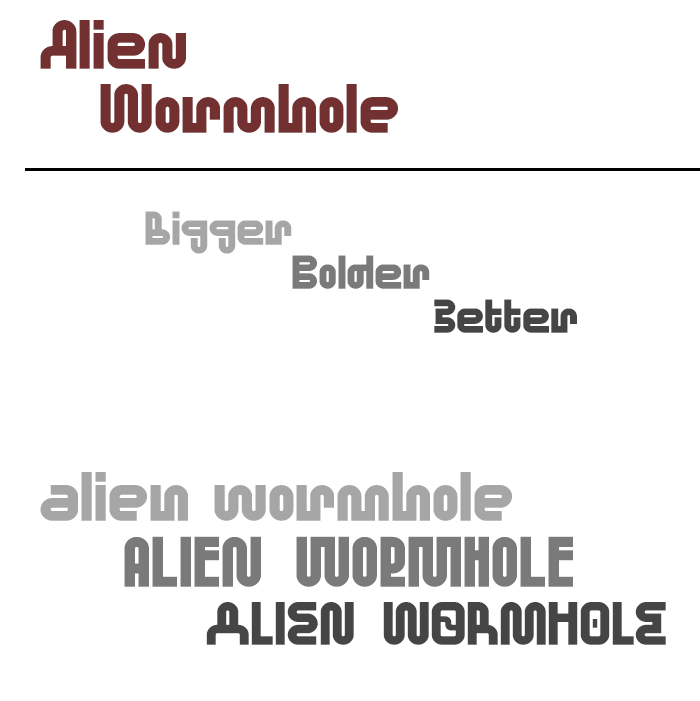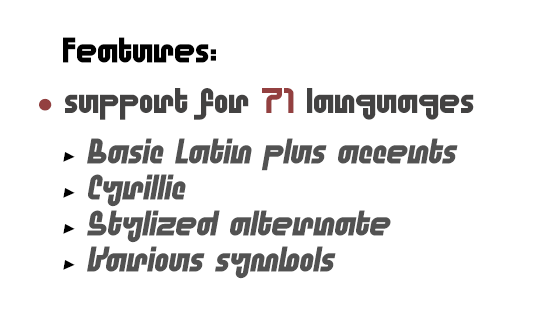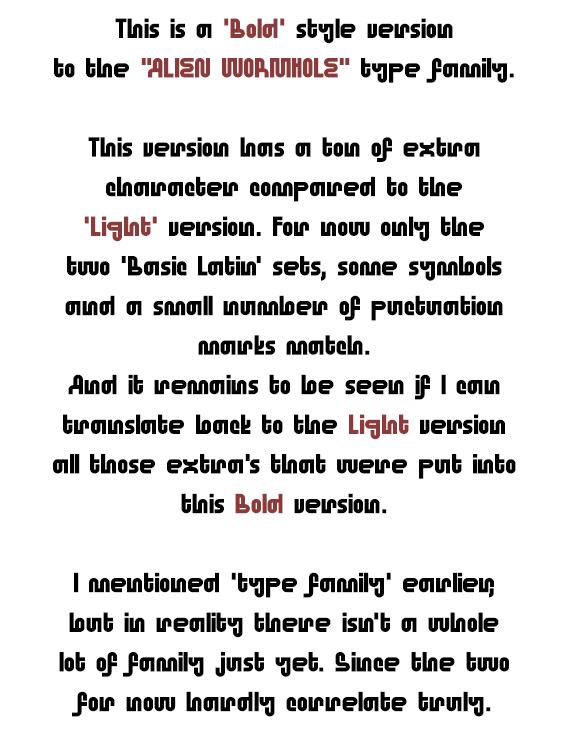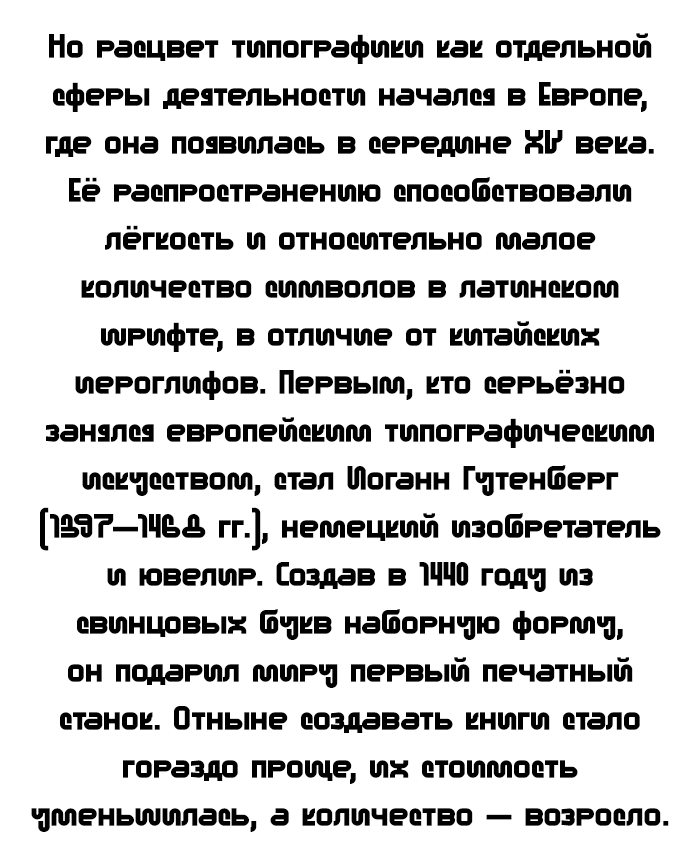
• ALIEN WORMHOLE (BOLD) - Monolinear Sci-Fi-inspired 'worm' typeface.
This is a 'Bold' style version to the "ALIEN WORMHOLE" type family.
This version has a ton of extra character compared to the 'Light' version.
For now only the two 'Basic Latin' sets, some symbols and a small number of puctuation marks match. And it remains to be seen if I can translate back to the Light version all those extra's that were put into this Bold version.
I mentioned 'type family' earlier, but in reality there isn't a whole lot of family just yet. Since the two for now hardly correlate truly.
This is more legible than the "light" version and the new K and R works much better, IMHO. I like it!
This is even cooler.
Literally every tiny irregularity is visible!
Squiggly! This looks a lot like Pickle Standard. Did you base your designs off from it? Like your alternative ways of executing the glyphs though!
@Micheal (faux_icing): Yeah, that is one very similar one indeed, but there were actually several others that influenced this work.  Cool font by the way that 'Pickle'. I couldn't do a full Cyrillic support with that level of complexity like Pickle though.
*Now looking at 'BB Standard' by the same designer*  It seems that we both both have based fonts on the same source material. As 'BB Standard' looks even more alike.
Excellent Cyrillic font. But this raises some questions for me. Why does the Д stick out so much on the lower left side? And why did you make the Д narrower than the Л, but not make the right side of the Ю narrower than the O (only for capital letters)? You made rounded Щ Ш, but a sharp Ц. It seems to me that the hole in the lower part of the letters БЪЬЫ is very large, when Р is small. Also, when reading Я are very strongly knocked out and not very clear, you need to make it wider with two lower legs, you can round its upper right corner. С Э сэз in Cyrillic have too unique form of endings. Ф protrudes upwards in capitals, but ф falls short of the height of lowercases. Hope, you will correct according to my advice and also make a thin version with Cyrillic.. F protrudes upwards in capitals, but falls short of the height of lowercases.
@Dmitriy: Thanks for your constructive critisism my friend.. very very much appreciated. I did update some of the things you pointed out already.
Дд - Adjusted the lower left side, made it slightly wider and narrowed Л to match it.
Ю - I will not touch the width (if that is what you meant... )
Ц - I rounded the bottom left corner to match the rounded Щ Ш, but I have a feeling you wouldve rather seen Щ Ш been made sharp to match Ц.. right?
БЪЬЫ - I simply took the top part from Р to replace all bottom parts for БЪЬЫ with.
Фф - Changed both characters to fit correctly in the verticals.
Hope I did the above right this time!
Яя - I tried some other solutions that I think didn't worked out so I again resort on the innitial design I had untill I found better suitable solution. (But changing this is kind of a painful one, as I really liked these more experimental forms)
СЭсэз - I don't think I fully understood what you tried telling me about these characters, did I do incorrect versions for them as well?
"Hope, you will correct according to my advice and also make a thin version with Cyrillic.."
I was planning on doing this, but as thinking about it right now I realize this might take a while before truly getting realized... Too bad I have already set the tone by doing cyrillic in the bold version, which prevents all means of design freedom for cyrillic in the light weight version, as I want them to be matching, otherwise I would've asked you for Cyrillic. ?
It's much better now, although Cyrillic is still different from Latin, it has wider letters, and in Latin they all have thin inner white (I'd rotate the х 90 degrees to make this effect fo it), so the y in Cyrillic looks to come out from the crowd. Ц now seems too wide to me. The leg of the letter Я can be bent outward, like л. The cyrillic letter p without a descender is hard to read, make it like in the Latin alphabet. I have a similar font, maybe you can look at it and experiment a bit.